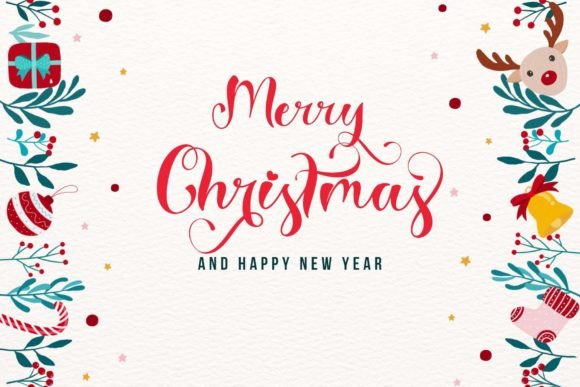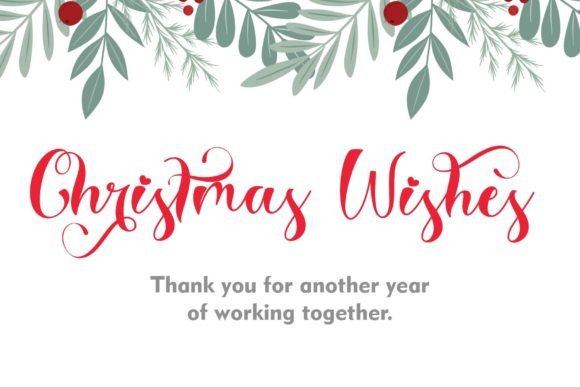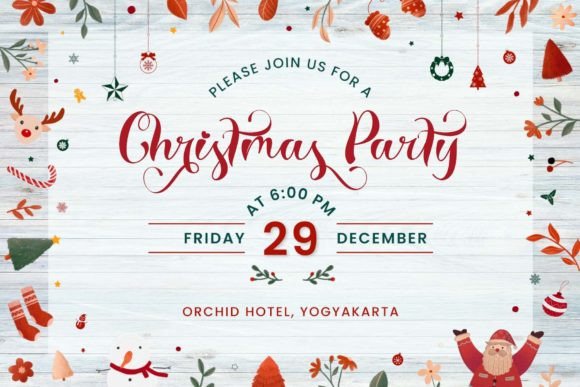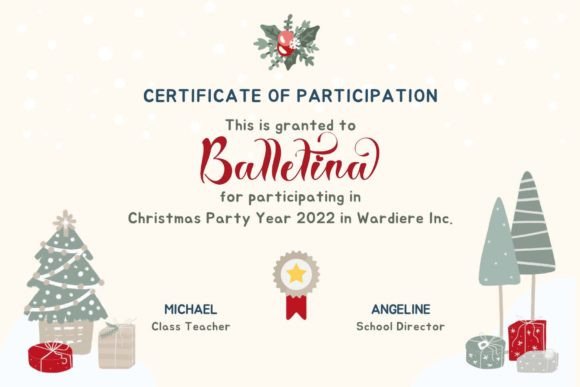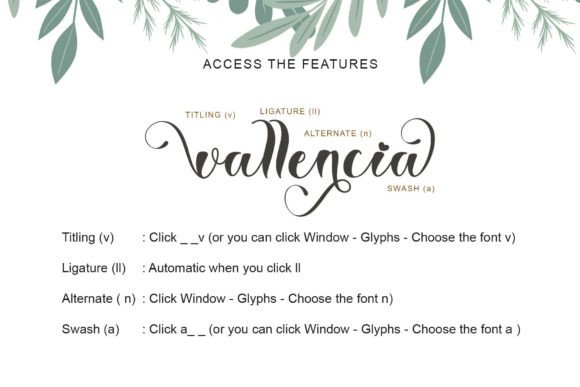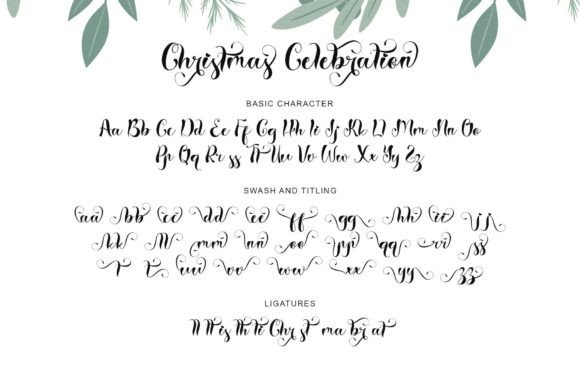
Get Ready to Deck the Halls with the Christmas Celebration Font
Have you ever found yourself rummaging through your craft room, surrounded by glitter, scissors, and half-finished DIY projects, desperate for the perfect finishing touch? That’s exactly when the magic of typography comes to play. For many of us, the right font can elevate a project from ordinary to extraordinary.
That’s where the Christmas Celebration Font comes in – a delicate and festive handwritten script font that’s sure to add a touch of elegance to any creative endeavor. Whether you’re planning a holiday-themed social media post or a handmade card for loved ones, this font is the perfect companion to bring your ideas to life. With its PUA encoding, accessing all the glyphs and ligatures is a breeze, making it a valuable addition to any designer’s toolkit.
Christmas Celebration Font Key Features
- Unique Characteristics: The font features a festive and celebratory feel, with intricate details and ornaments that evoke the spirit of Christmas. The font includes a range of characters, including uppercase and lowercase letters, numbers, and punctuation marks.
Review: Christmas Celebration Font
Overall, the Christmas Celebration Font is a fun and festive font that’s perfect for holiday-themed projects. I love the ✨ playful and whimsical feel it brings to any design. The font is well-suited for titles, headings, and short blocks of text, and its bold lines and rounded edges make it easy to read.
The font’s versatility is one of its strongest assets. You can use it to create a variety of holiday-themed designs, from invitations and cards to social media graphics and advertisements.
- ✨ Playful and whimsical feel
- Easy to read, even in bold lines
- Versatile and suitable for various holiday-themed designs
- Well-suited for titles, headings, and short blocks of text
One of the limitations of the Christmas Celebration Font is its ✨ limited character set. It only includes uppercase letters, numbers, and a few punctuation marks, making it less suitable for longer blocks of text or more complex designs.
Another limitation is the font’s ⚠️ lack of support for certain languages, which may limit its use in multilingual designs.
Overall, the Christmas Celebration Font is a fun and festive font that’s perfect for holiday-themed projects. While it has some limitations, its playful feel and versatility make it a great choice for designers looking to add some holiday cheer to their designs.
Use the Christmas Celebration Font to add a festive touch to your designs, such as:
– Holiday greeting cards
– Party invitations
– Menus and gift tags